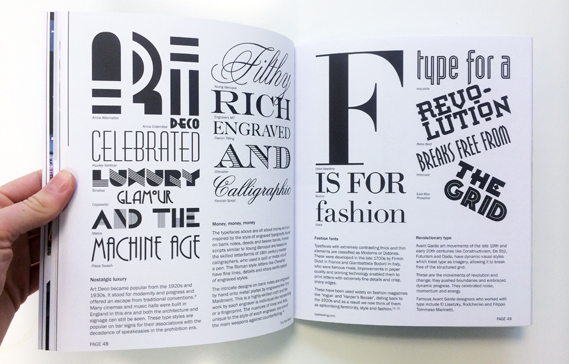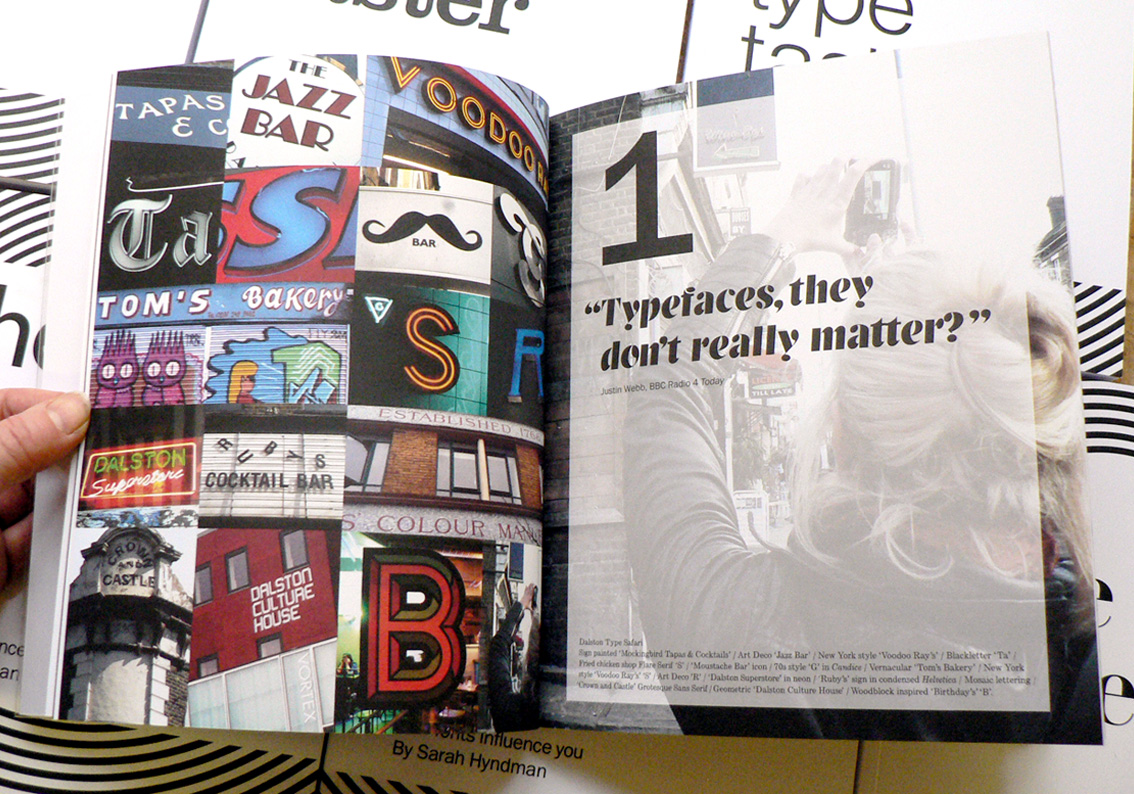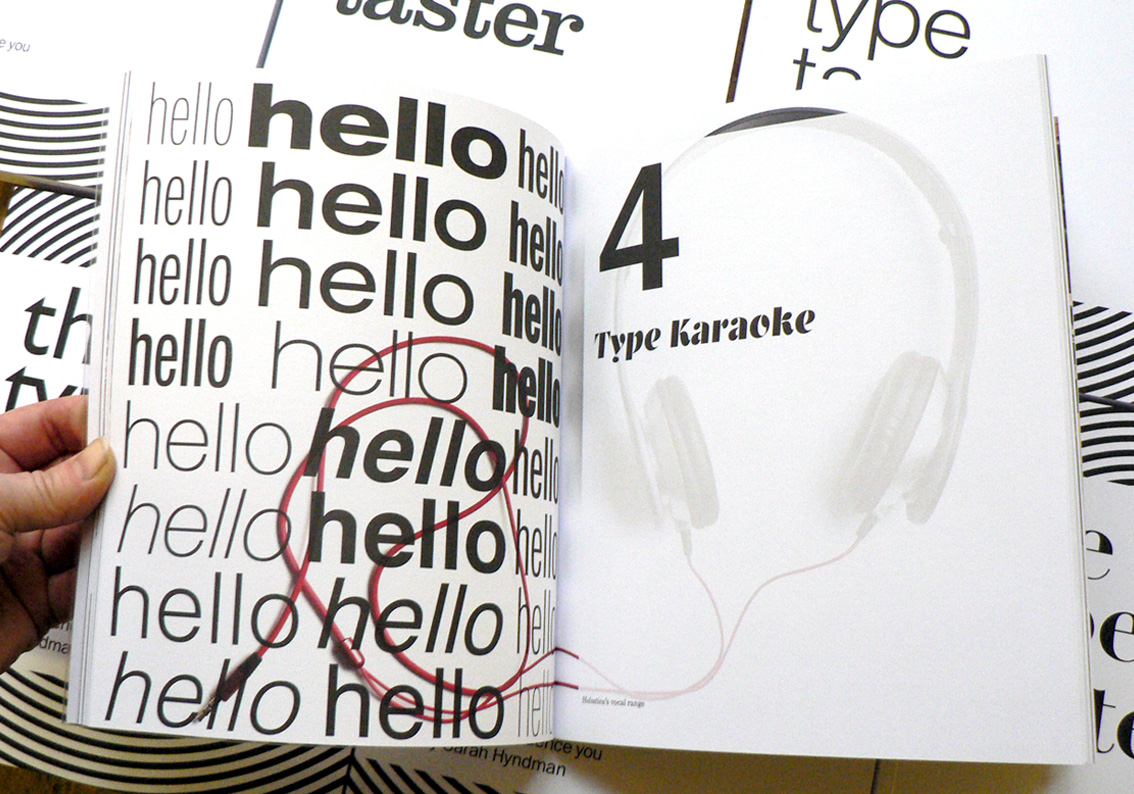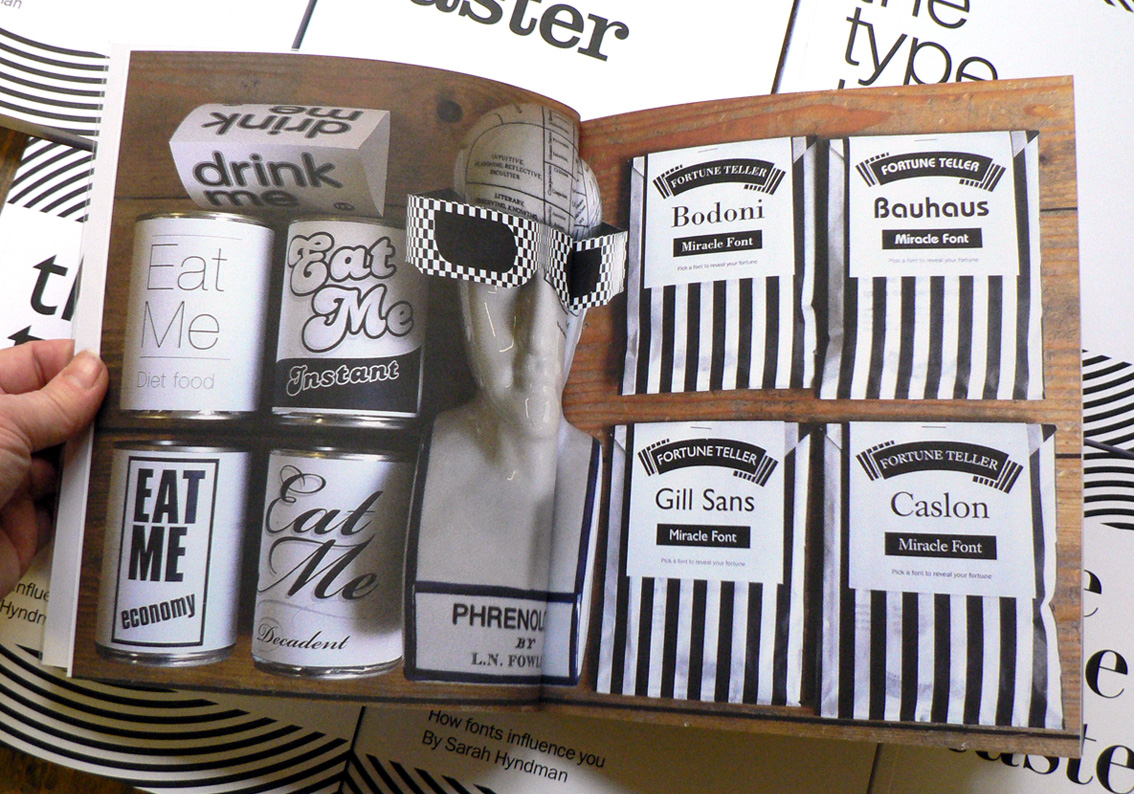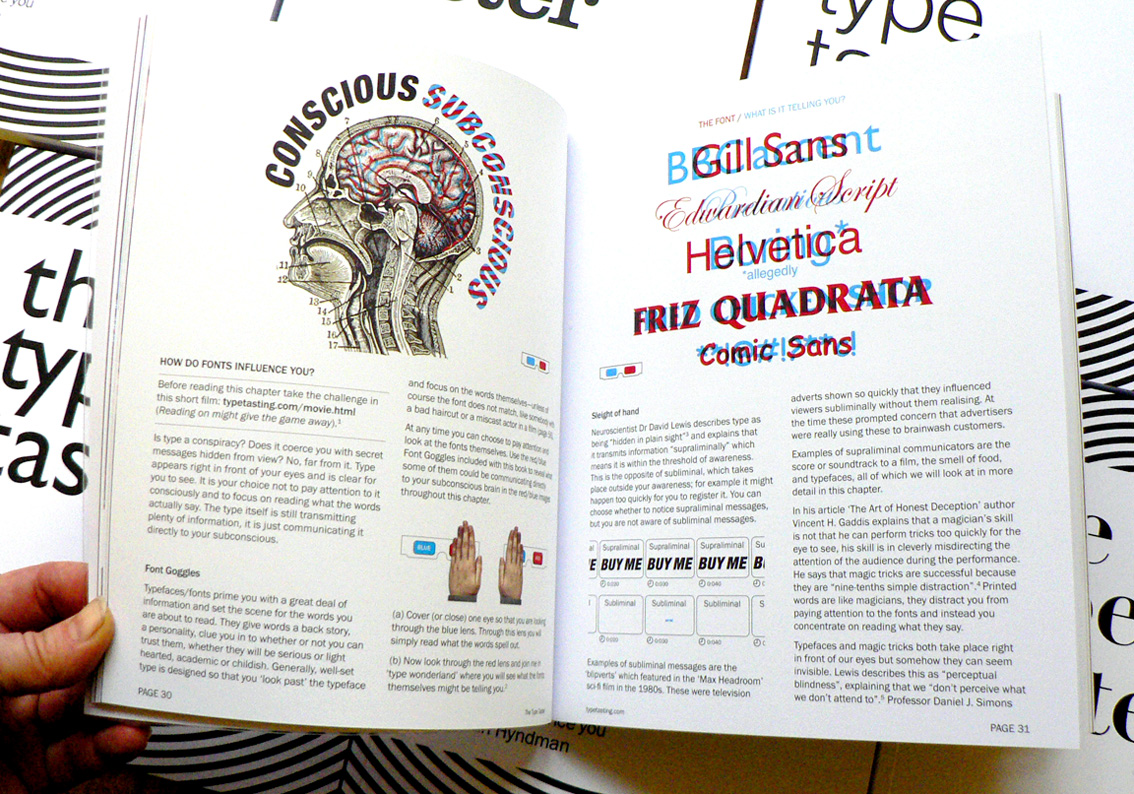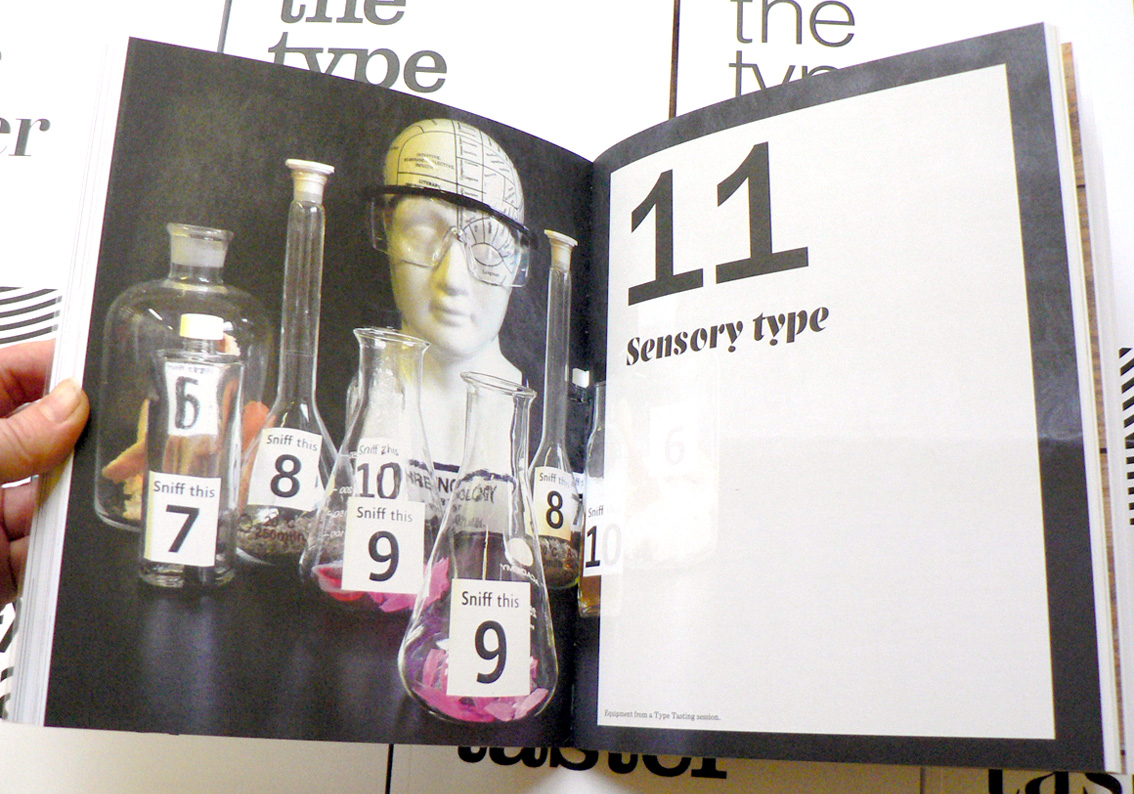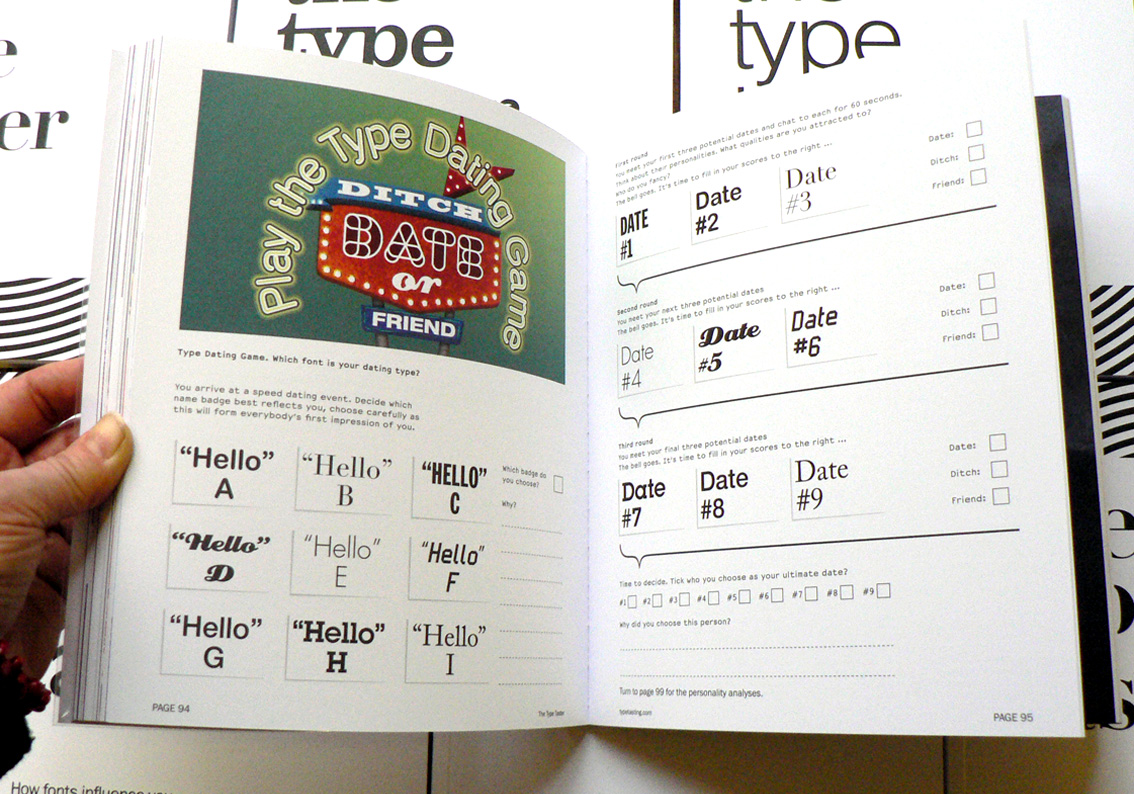
Are you a UK design student? Prepare yourself for the new year with a discounted copy of The Type Taster and free postage (save £5). This is a book about typography from the point of view of the type consumer and takes you through the associations and science behind fonts influence you as a reader.
Student copies of the book will also include a selection of typography games (shown above).
“You have really opened my eyes to such a brilliant subject. It’s already making me view design work from such a different view point and I have now become excited by the possibilities typefaces present while experimenting with them.” Design student Jessica Dutton
“This alongside the typography bible (Robert Bringhurst’s elements of typographic style) should become a staple in everyone’s collection.” James (Via Creative Review blog)
“This is no boring instructional tome on the correct use of ligatures, rather it takes a look at the emotional lives of fonts, and examines how their distinct personalities create (often subconscious) emotional responses.” Grafik
“The book is also written in this Type Tasting style–friendly and informal, with easily relatable references. But it’s not all play. The book makes a persuasive case for changing the way we think and talk about type, turning it into a more inclusive subject that allows non-experts the confidence to express opinions.” Emma Tucker, AIGA
“While The Type Taster draws on some serious research, however, it does so in a fun, informal way.” Rachael Steven, Creative Review